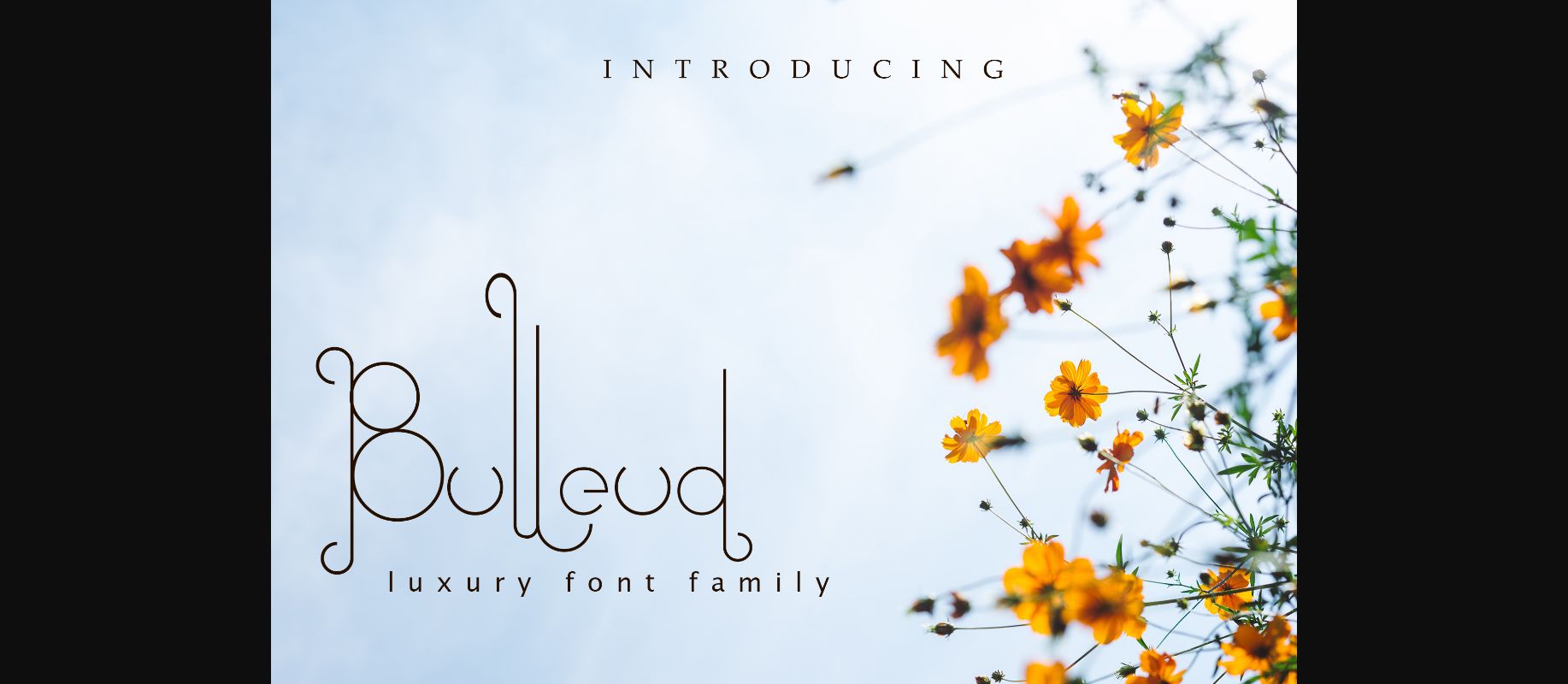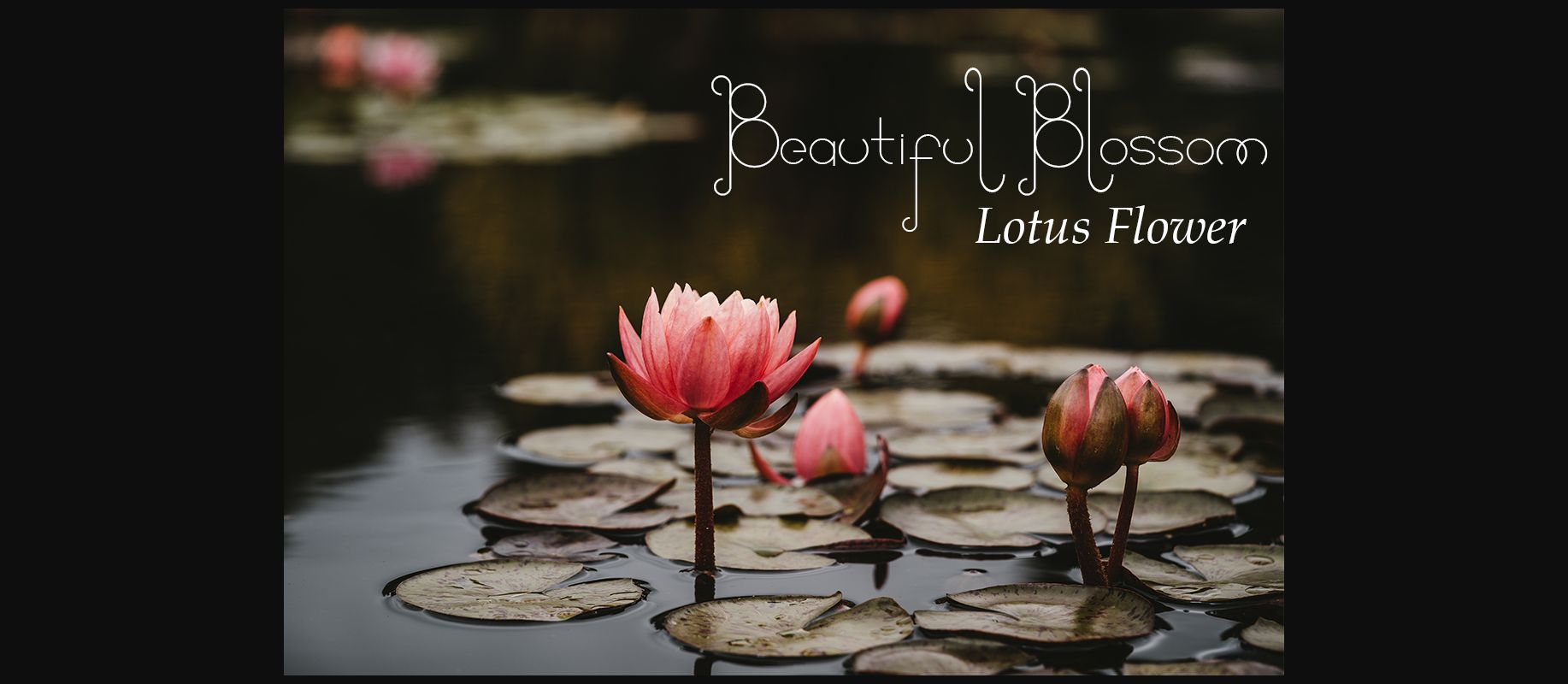
About Bulleud Font
The Bulleud is a modern script font with a fresh feel. Itβs circular characteristics make it look elegant, stylish and perfect for any awesome project that needs a luxury style.